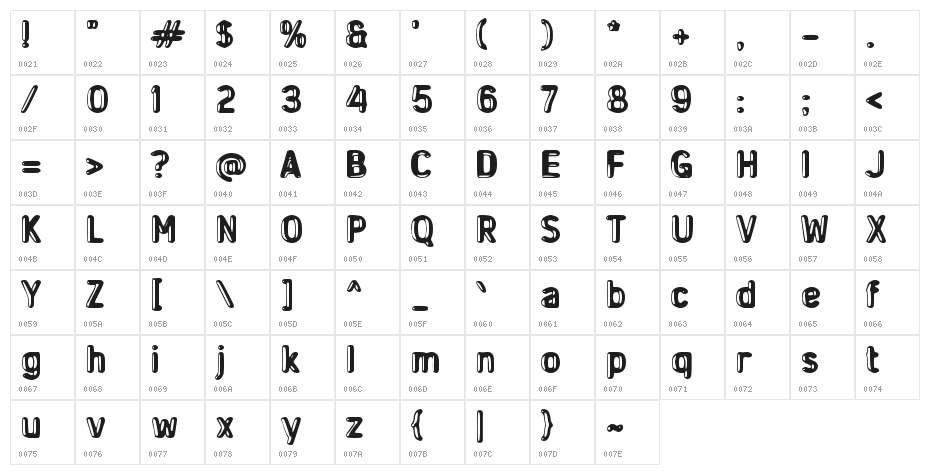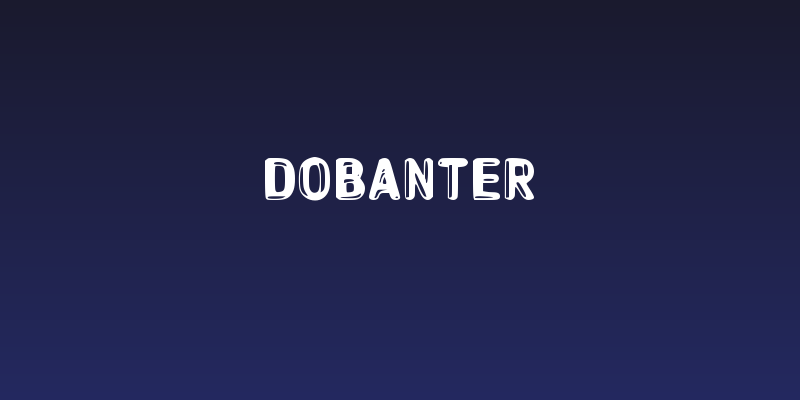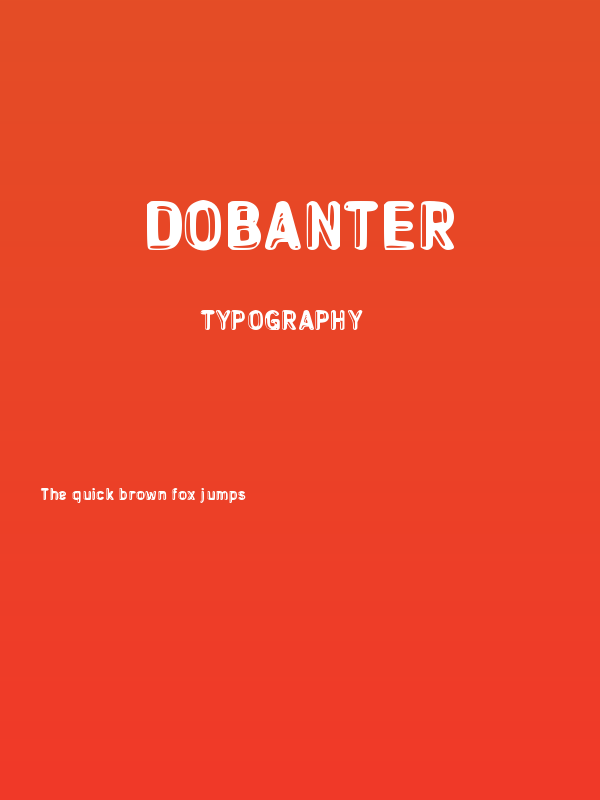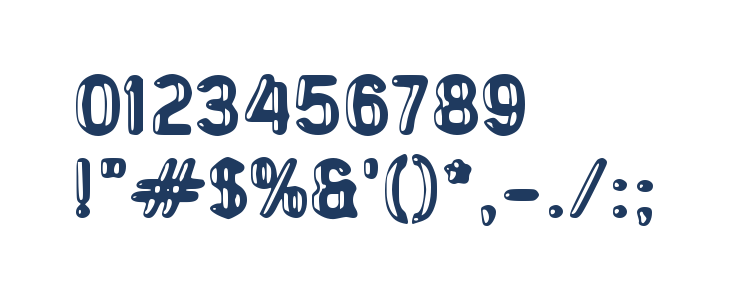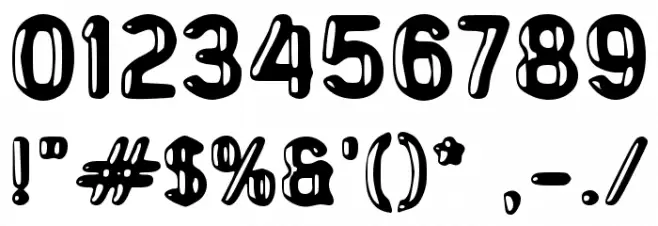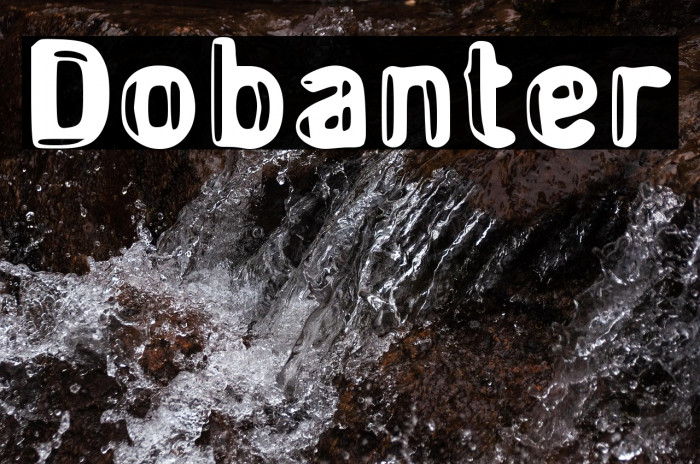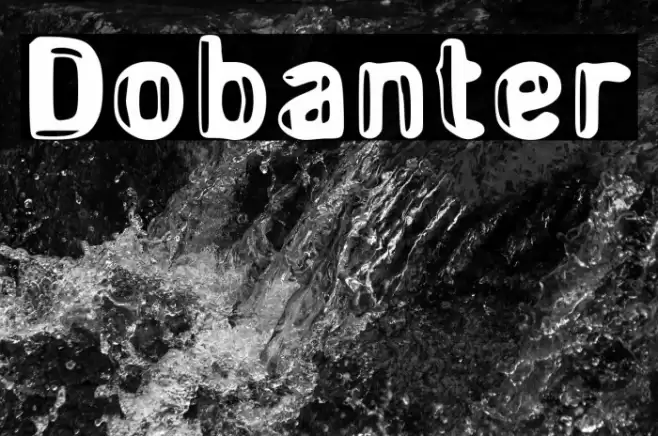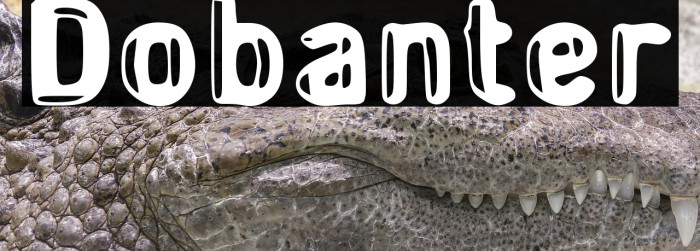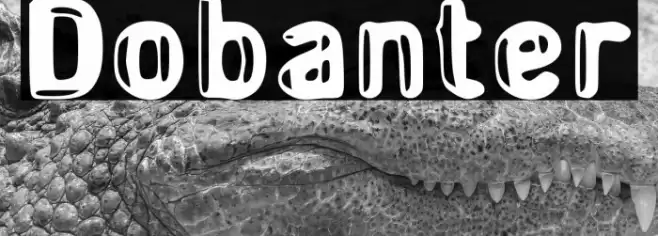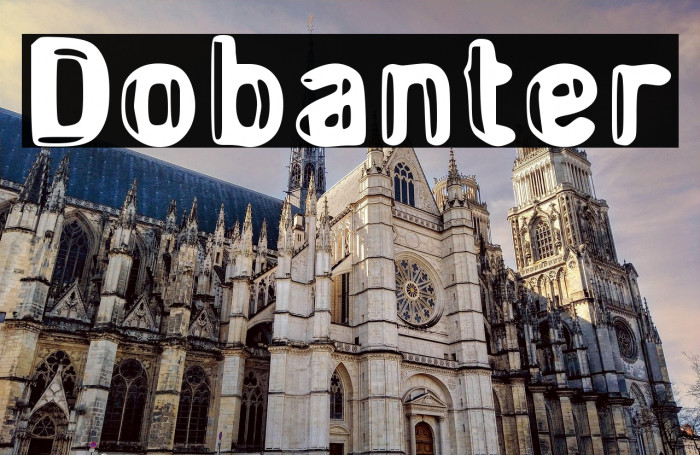
Dobanter Font
Dobanter Description
This font features a playful and bold design with a unique hollow effect that gives it a three-dimensional appearance. The characters are rounded and have a consistent thickness, creating a cohesive and visually appealing look. The uppercase and lowercase letters maintain a uniform style, while the numbers and special characters complement the overall design. The font's distinct style makes it stand out, making it suitable for creative and eye-catching projects. Its boldness and decorative nature make it ideal for use in headlines, posters, and branding materials where a fun and engaging look is desired.
| Proposed Projects | Ideal for posters, headlines, branding, and creative projects requiring a fun and engaging look. |